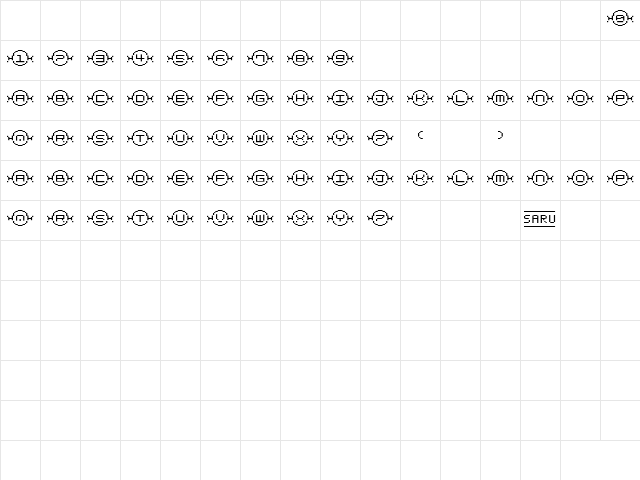
Complete Bit Rope20 (sRB) Regular glyph index. Displaying only characters natively supported by Bit Rope20 (sRB) Regular font.
Bit Rope20 (sRB) is a composed and adaptable typeface that performs quietly and consistently across a wide range of design contexts.